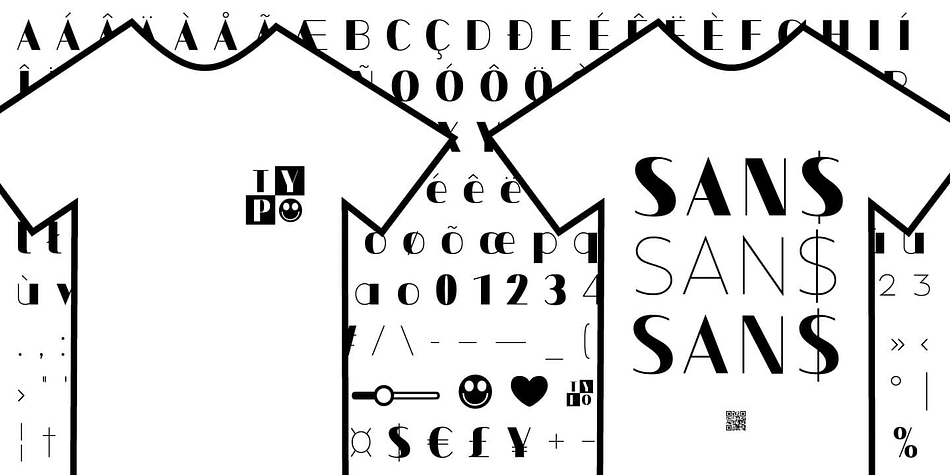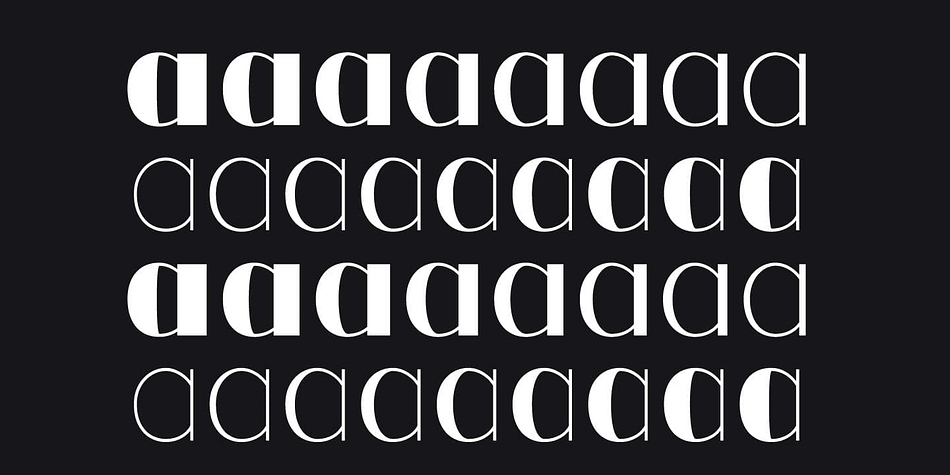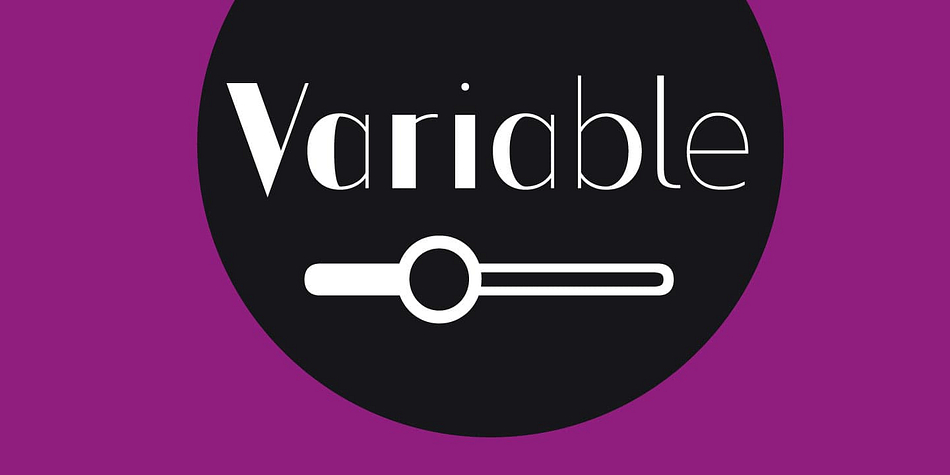
Contrast Sans Variable
Designed by Manuel Viergutz, Contrast Sans Variable is a sans serif font family published by Typo Graphic Design.
The Sans Serif typeface Contrast SANS with 2 variable axes is designed from 2024 for the font foundry Typo Graphic Design by Manuel Viergutz.
18 font-styles (Thin to Thin, Thin, Light, Regular, Medium, SemiBold, Bold, ExtraBold, Thin to Black, Black to ExtraBold, Black to SemiBold, Black to Medium, Black to Regular, Black to Light, Black to ExtraLight, Black to Thin) with 220+ glyphs (Adobe Latin 2) incl. decorative extras like icons, arrows, catch words, dingbats, emojis, symbols, geometric shapes (type the word #LOVE for ❤ or #SMILE for ☺ as OpenType-Feature dlig) and stylistic alternates (2 stylistic sets).
For use in logos, magazines, posters, advertisement plus as webfont for decorative headlines. The font works best for display size.
Font Spe­ci­fi­ca­ti­ons
■ Font Name: Contrast Sans
■ Font Styles: 18 font-styles (Thin to Thin, Thin, Light, Regular, Medium, SemiBold, Bold, ExtraBold, Thin to Black, Black to ExtraBold, Black to SemiBold, Black to Medium, Black to Regular, Black to Light, Black to ExtraLight, Black to Thin) + DEMO (with reduced glyph-set)
■ Font Cate­gory: Variable Sans Serif for head­line size
■ Glyph Set:  234 glyphs (incl. decorative extras)
■ OpenType features (7):  aalt dlig ordn ss01 ss02 sups kern
■ Specials: Capital Letter Sharp S (German Versal Eszett U+1E9E) ẞ, Catchwords like AND, Emojis like Smiley ☺ ☻, Symbols like Heart ♥︎, Variable Sans Serif Font with 2 axes (Width, Weight)
■ Design Date: 2024
■ Type Desi­gner: Manuel Viergutz